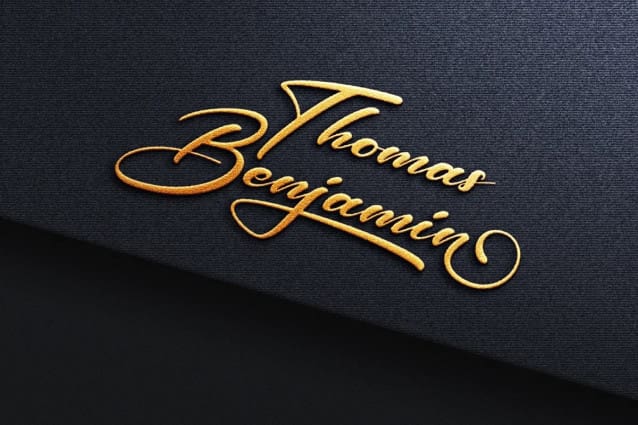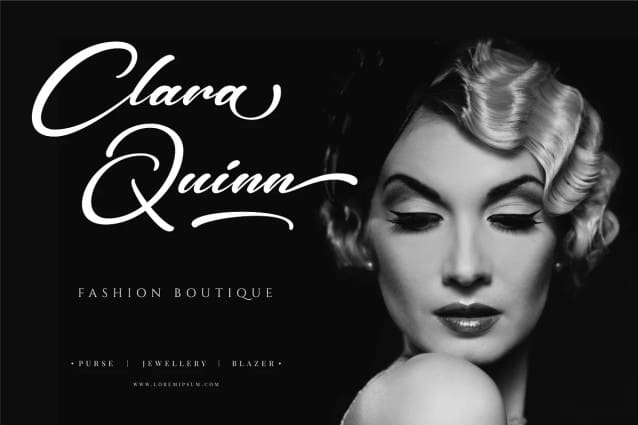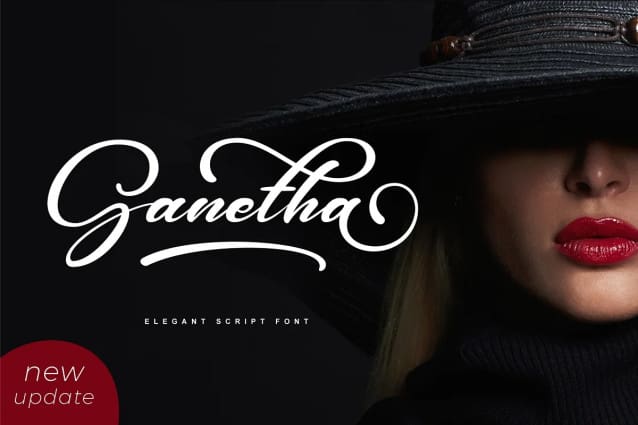
Ganetha Font
Ganetha Font is a script font that has a very nice elegant and luxurious feels. This font is perfectly suit for logo typography but it can also used for other branding needs such as magazine or book cover, website header, product packaging, invitation, quotes, t-shirt design, label poster and more.